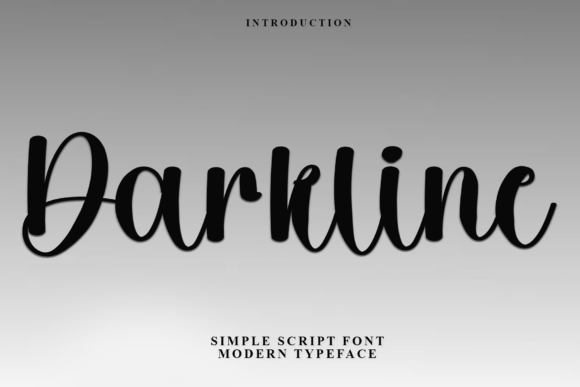
Discover the Unique Charm of Darkline Font: Elevate Your Designs with Its Distinctive Style
In the world of typography, fonts play a crucial role in conveying messages, expressing creativity, and capturing the audience’s attention. Among the numerous fonts available, Darkline Font stands out for its soft, unique touch and distinctive strokes, making it a versatile and meaningful choice for various design projects. In this article, we’ll explore the features, benefits, and applications of Darkline Font, and how it can enhance your creative works.
The Story Behind Darkline Font
Darkline Font is a beautifully crafted typeface designed to leave a lasting impression. Its creator aimed to develop a font that not only catches the eye but also conveys a sense of uniqueness and character. With its soft and distinctive strokes, Darkline Font has achieved just that, making it an excellent choice for designers seeking to add a personal touch to their work.
Key Features of Darkline Font
- Unique and Distinctive Strokes: Darkline Font boasts a one-of-a-kind design, with strokes that set it apart from other fonts.
- Soft and Eye-Catching: The font’s soft texture and appealing appearance make it perfect for designs that require a touch of elegance and sophistication.
- Versatile and Meaningful: Darkline Font’s distinctive character makes it suitable for a wide range of applications, from creative projects to commercial designs.
- Variety of Characters: The font comes with a range of characters, ensuring that you have ample options for your design needs.
Applications of Darkline Font
Darkline Font’s versatility makes it an excellent choice for various design projects, including:
- Design Projects: Use Darkline Font to add a unique touch to your brochures, posters, and business cards.
- Crafts: The font’s distinctive style makes it perfect for craft projects, such as handmade cards, invitations, and DIY tutorials.
- Creative Works: Darkline Font is ideal for artists, writers, and musicians looking to add a personal touch to their work.
The Benefits of Using Darkline Font
By incorporating Darkline Font into your designs, you can:
- Enhance Your Designs: The font’s unique style and distinctive strokes will add a touch of elegance and sophistication to your work.
- Appeal to a Wider Audience: Darkline Font’s versatility and charm make it an excellent choice for designs aimed at various artistic and creative fields.
- Save Time and Effort: With Darkline Font, you can create stunning designs quickly and efficiently, thanks to its ease of use and compatibility with popular design software.
Tips and Tricks for Using Darkline Font
To get the most out of Darkline Font, consider the following tips:
- Experiment with Different Sizes and Colors: Darkline Font’s versatility allows you to experiment with various sizes and colors to achieve the desired effect.
- Pair it with Other Fonts: Combine Darkline Font with other fonts to create a unique and visually appealing design.
- Use it for Headings and Titles: Darkline Font’s distinctive style makes it perfect for headings and titles, adding a touch of elegance and sophistication to your designs.
Darkline Font is a beautiful and eye-catching typeface that offers a unique touch to various design projects. Its distinctive strokes, soft texture, and versatility make it an excellent choice for designers, artists, and creatives. With its compatibility with popular applications and platforms, Darkline Font is poised to become a go-to font for those seeking to elevate their designs and capture their audience’s attention.